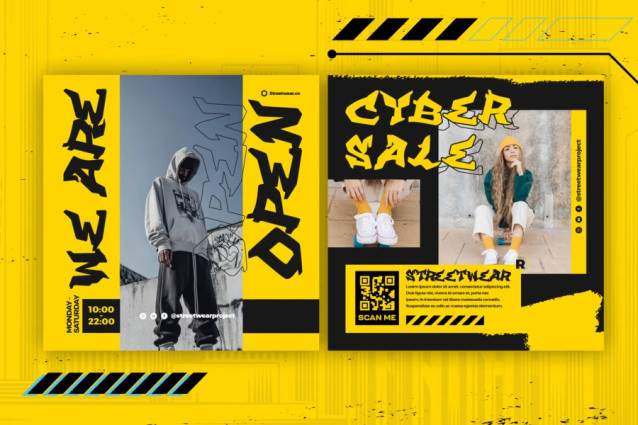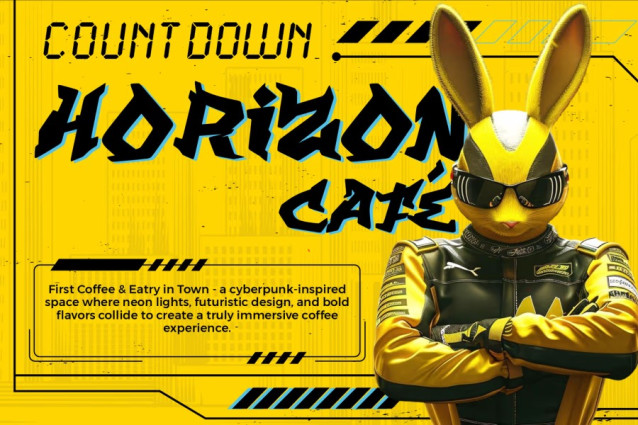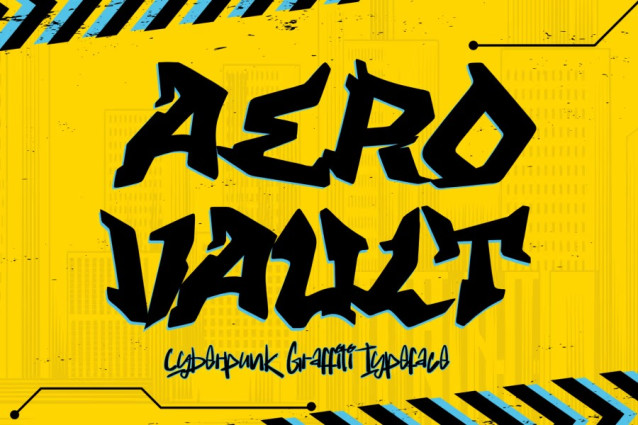
Aero Vault Font
Aero Vault Font – Cyberpunk Graffiti Font, an electrifying typeface that merges futuristic aesthetics with urban graffiti culture. Designed by Cikareotype Studio, this bold font is built for designers who want to blend street rebellion with sci-fi innovation.
Aero Vault captures the intensity of the cyberpunk world—neon lights, holographic signs, and chaotic cityscapes—while maintaining the freehand attitude of graffiti tagging. It’s the perfect fusion of digital rebellion and street authenticity. With uppercase characters, multilingual support, and professional file formats (OTF, TTF, WOFF), Aero Vault delivers high performance and stunning results across every creative platform.